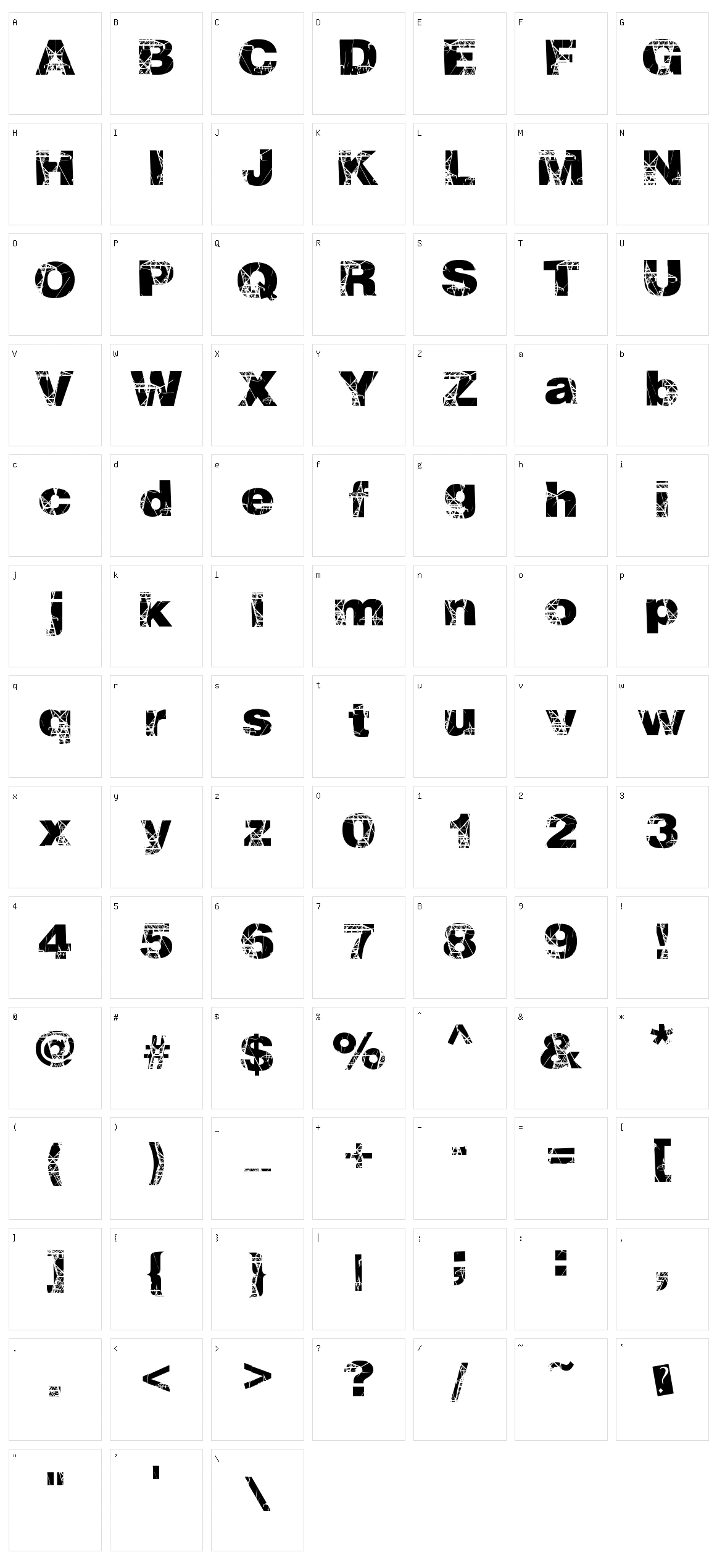
The free font Power Play is carefully designed by Xerographer Fonts, showcasing a thoughtful balance of creativity and usability and falls under the Eroded font style. When you download the ZIP file, it contains only 182.2 KB of font files, making it lightweight and quick to download. Please review the license details below to understand permitted usage and distribution rights. If license information is not available, we recommend using this font for personal projects only or contacting the author directly for commercial usage permissions.